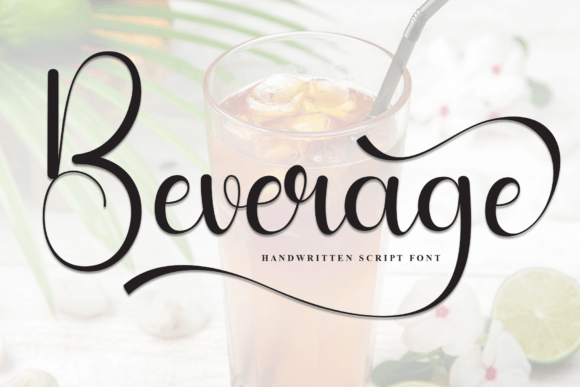
Beverage Font: Adding a Touch of Whimsy to Your Designs
In the world of typography, fonts play a crucial role in conveying the tone and personality of a design. Whether you’re creating wedding invitations, greeting cards, or any other visual material, the right font can make all the difference. Introducing the Beverage Font, a charming and cordial handwritten display font that is sure to add a sprinkle of whimsy to your creations.
The Characteristics of Beverage Font
The Beverage Font is characterized by its delightful and playful aesthetic. This font is perfect for designers who want to infuse their work with a charmingly vivacious vibe. The font’s playful and carefree nature makes it ideal for creating designs that require a touch of whimsy and fun.
One of the standout features of the Beverage Font is its sweet sentimentality. This font embodies a sense of nostalgia and warmth, making it perfect for creating designs that require a heartwarming touch. Whether you’re designing wedding invitations, birthday cards, or any other type of greeting card, the Beverage Font is sure to add a touch of personality to your work.
Perfect for Wedding Invitations and Cards
Wedding invitations and cards are a great way to showcase the Beverage Font’s unique characteristics. The font’s playful and whimsical nature makes it perfect for creating wedding invitations that are both elegant and fun. Whether you’re designing a formal or informal wedding invitation, the Beverage Font is sure to add a touch of personality to your work.
In addition to wedding invitations, the Beverage Font is also perfect for creating greeting cards for special occasions. Whether you’re designing a birthday card, anniversary card, or get-well card, this font is sure to add a touch of whimsy and fun to your design.
Adding a Touch of Whimsy to Your Designs
The Beverage Font is designed to add a touch of whimsy to your designs. The font’s playful and carefree nature makes it perfect for creating designs that require a sense of fun and personality. Whether you’re designing a logo, brochure, or website, the Beverage Font is sure to add a unique touch to your work.
One of the best things about the Beverage Font is its versatility. This font can be used in a variety of design contexts, from formal to informal. Whether you’re designing a wedding invitation or a birthday card, the Beverage Font is sure to add a touch of personality to your work.
The Benefits of Using the Beverage Font
There are many benefits to using the Beverage Font in your designs. Here are just a few:
- Unique and playful aesthetic: The Beverage Font has a unique and playful aesthetic that is sure to add a touch of whimsy to your designs.
- Sweet sentimentality: This font embodies a sense of nostalgia and warmth, making it perfect for creating designs that require a heartwarming touch.
- Versatility: The Beverage Font can be used in a variety of design contexts, from formal to informal.
In conclusion, the Beverage Font is a charming and cordial handwritten display font that is perfect for adding a touch of whimsy to your designs. With its unique and playful aesthetic, sweet sentimentality, and versatility, this font is sure to become a favorite among designers. Whether you’re designing wedding invitations, greeting cards, or any other type of visual material, the Beverage Font is sure to add a touch of personality to your work.